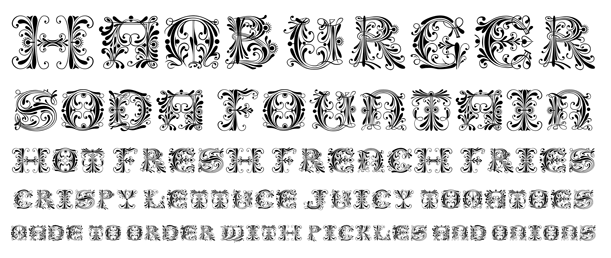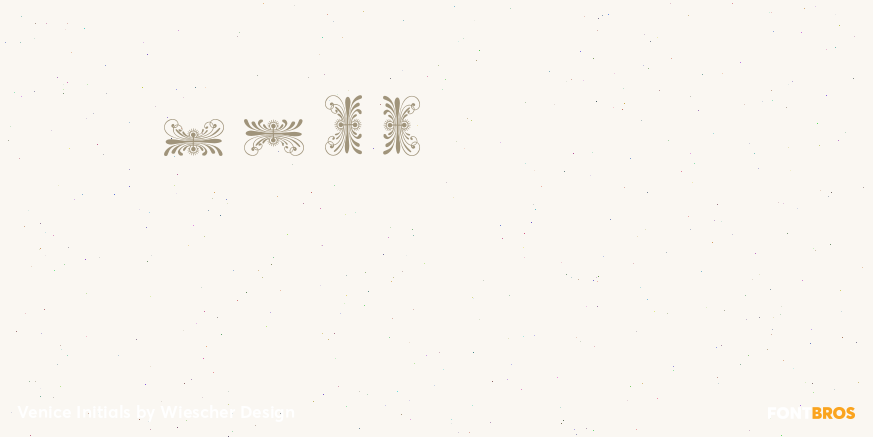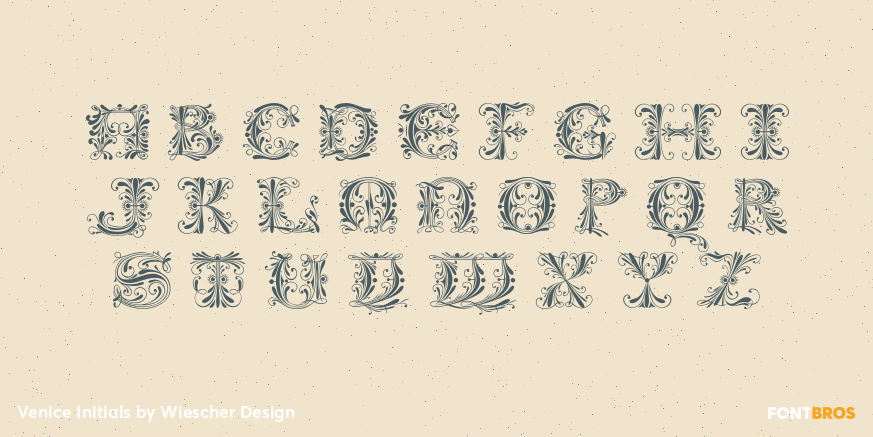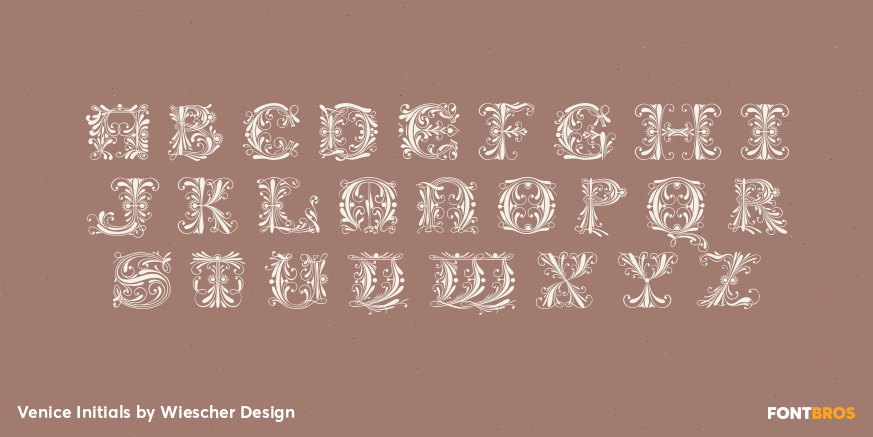
Venice Initials
Font Family by Wiescher Design
Venice Initials are my redesign of a 15th century venetian original by an unknown calligrapher.
Unfortunately only parts of the letters existed, so I had to design about half of them myself. Of course I enjoyed doing that.